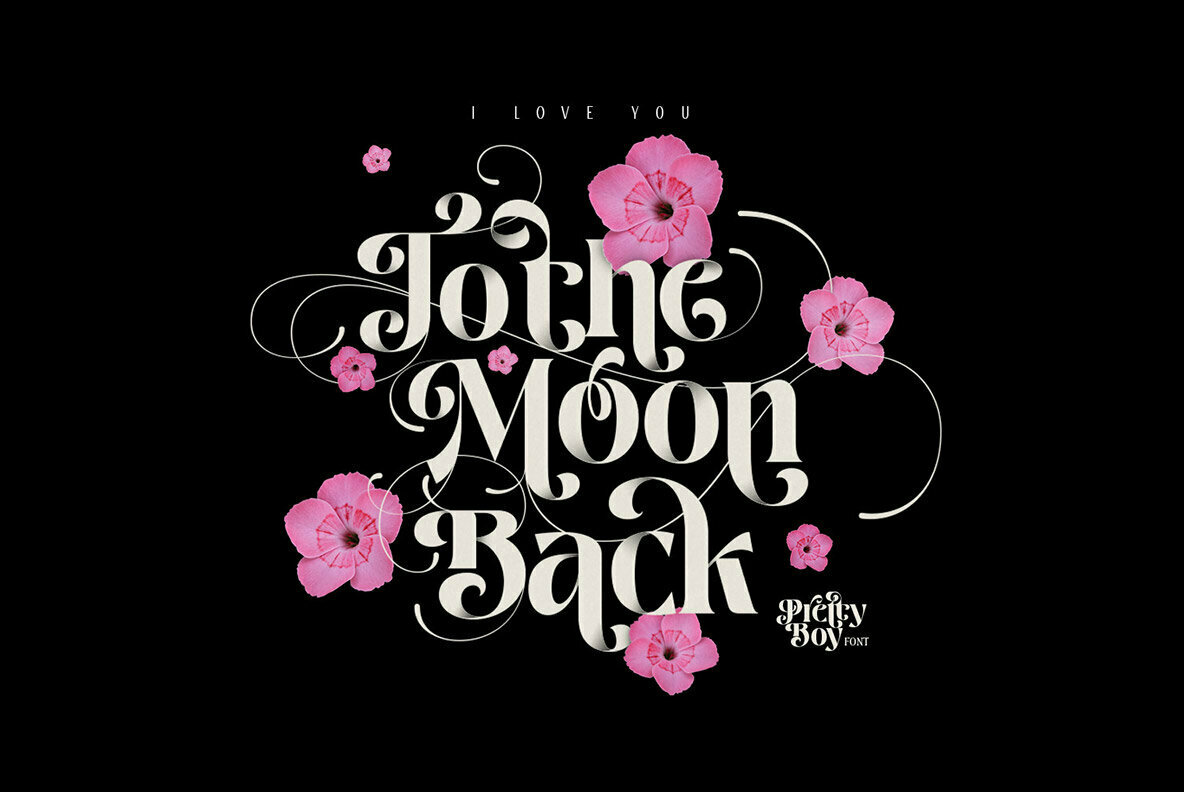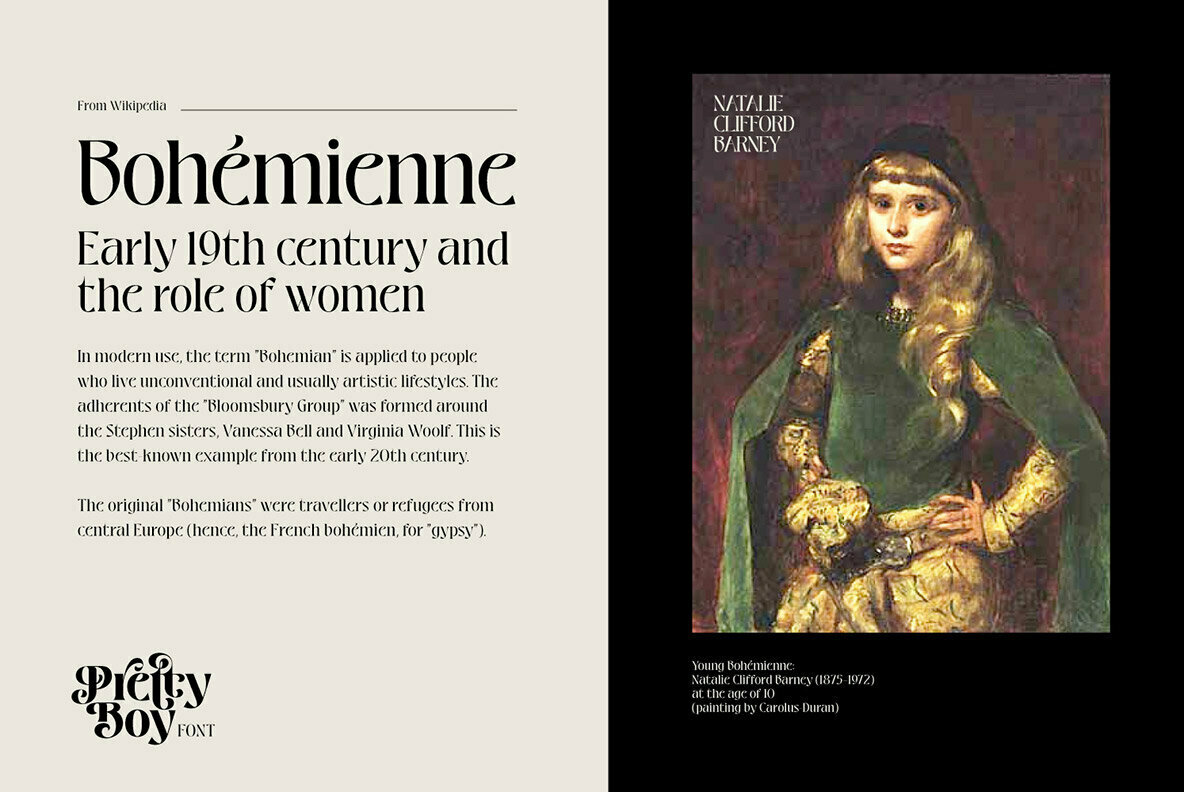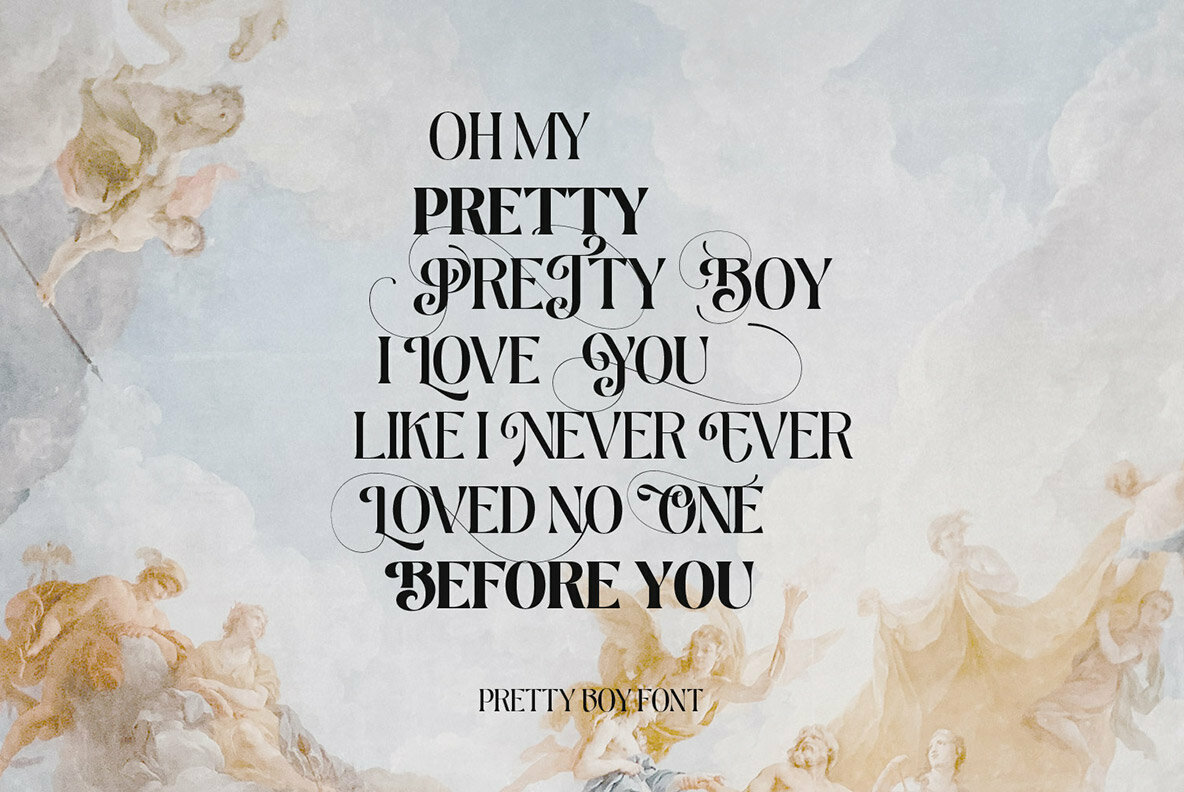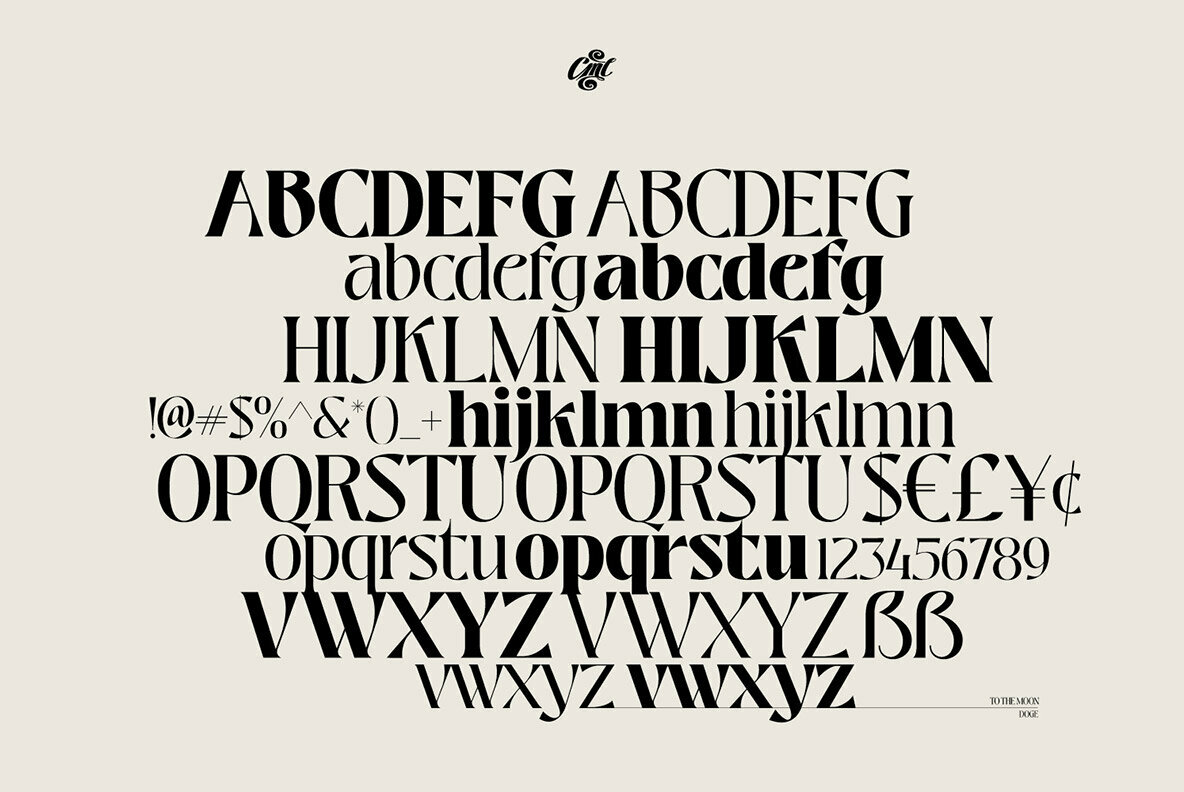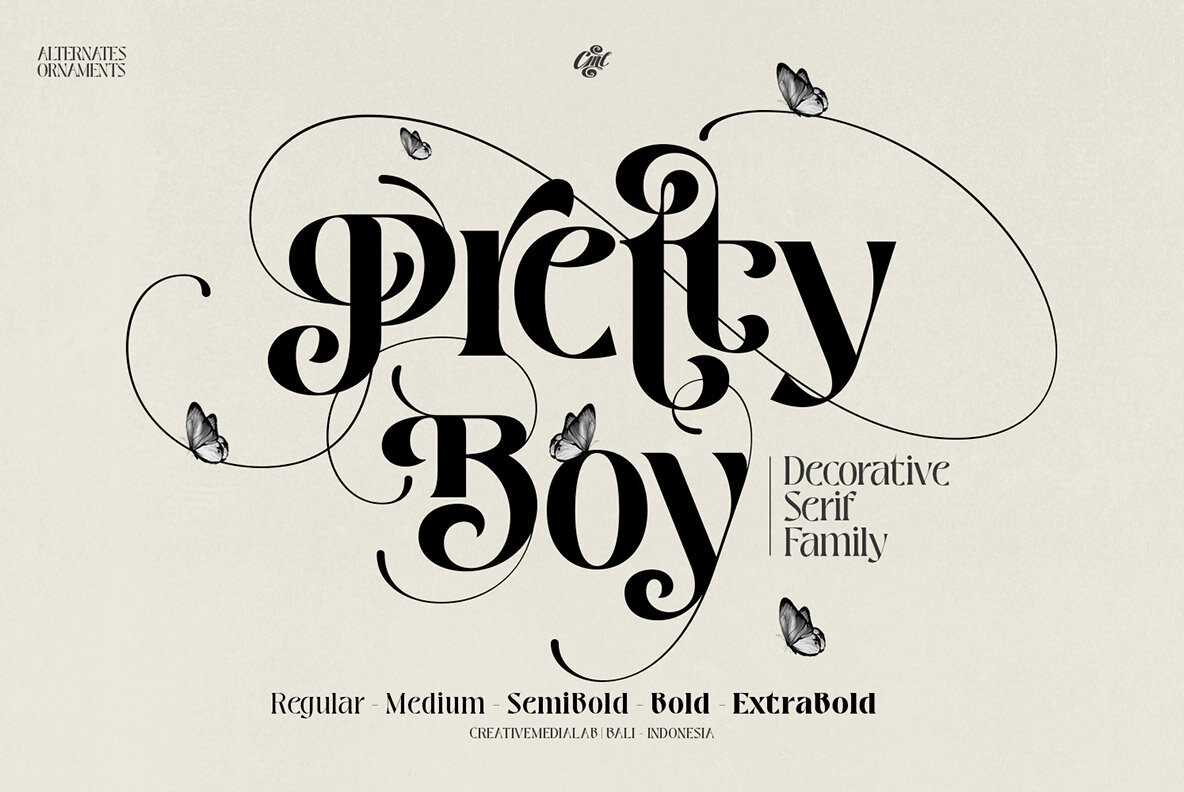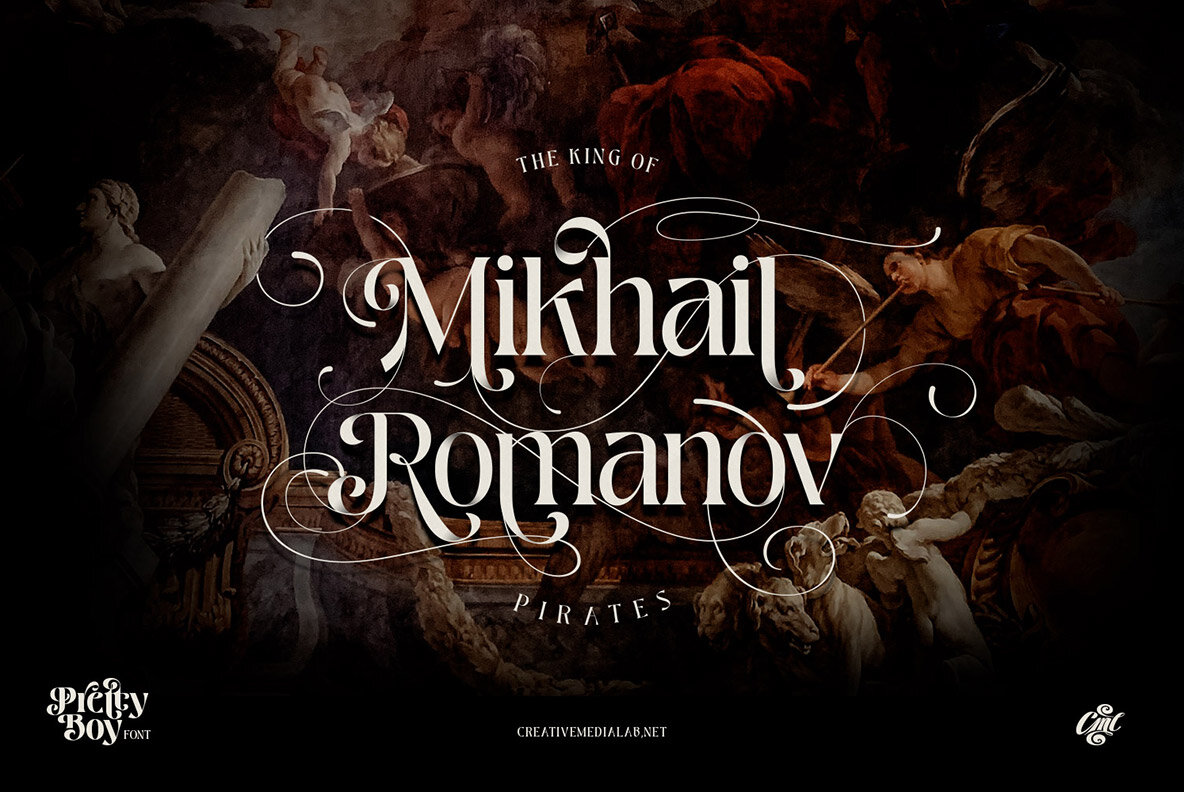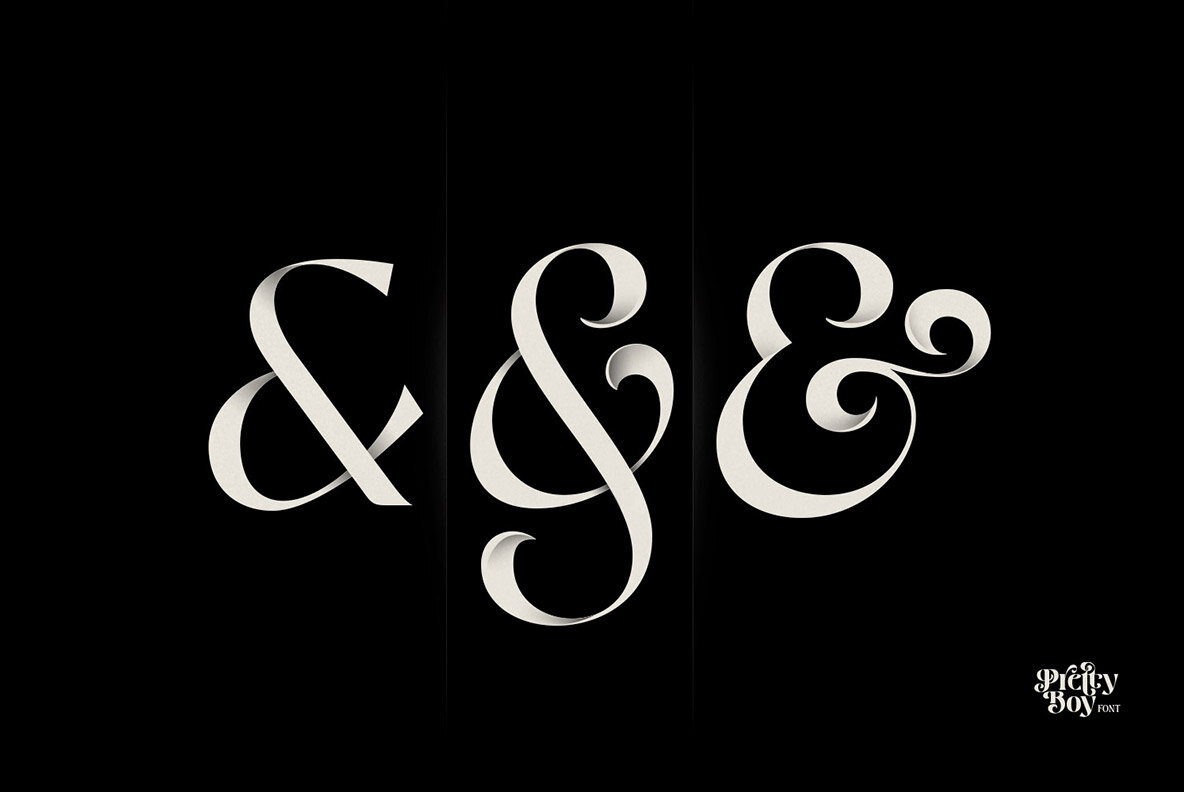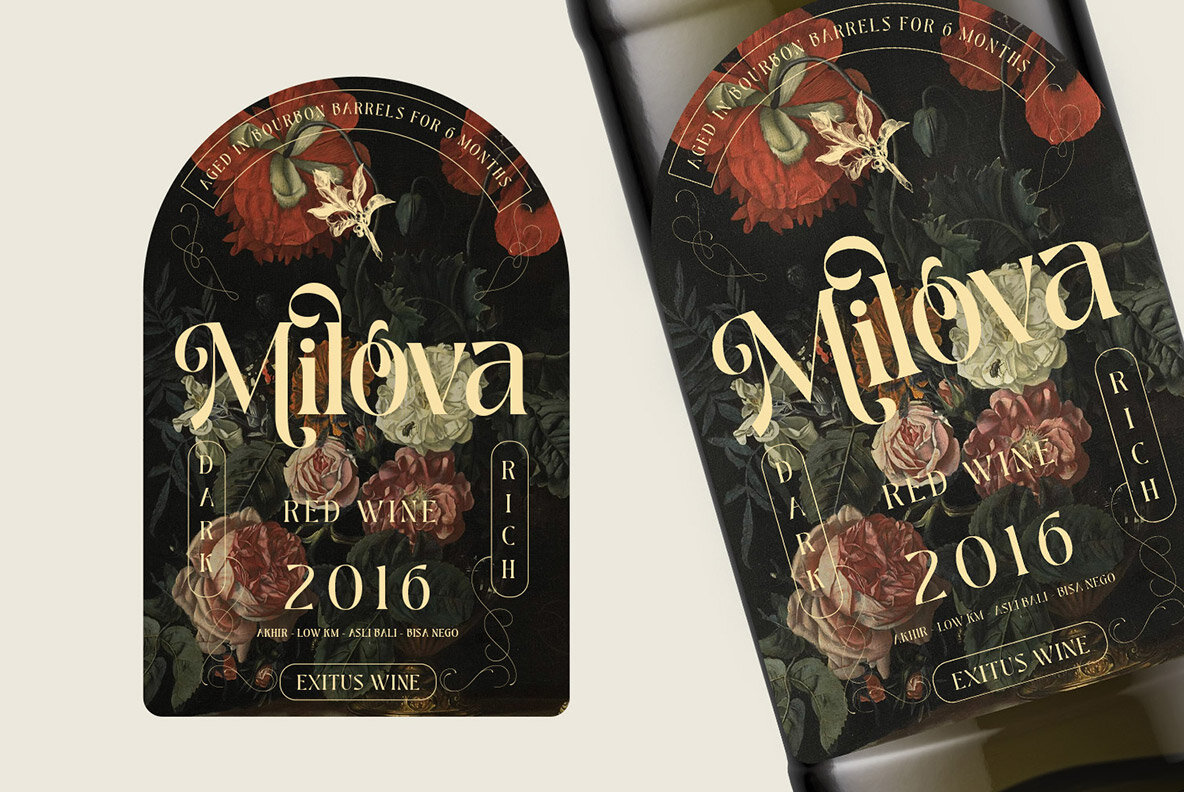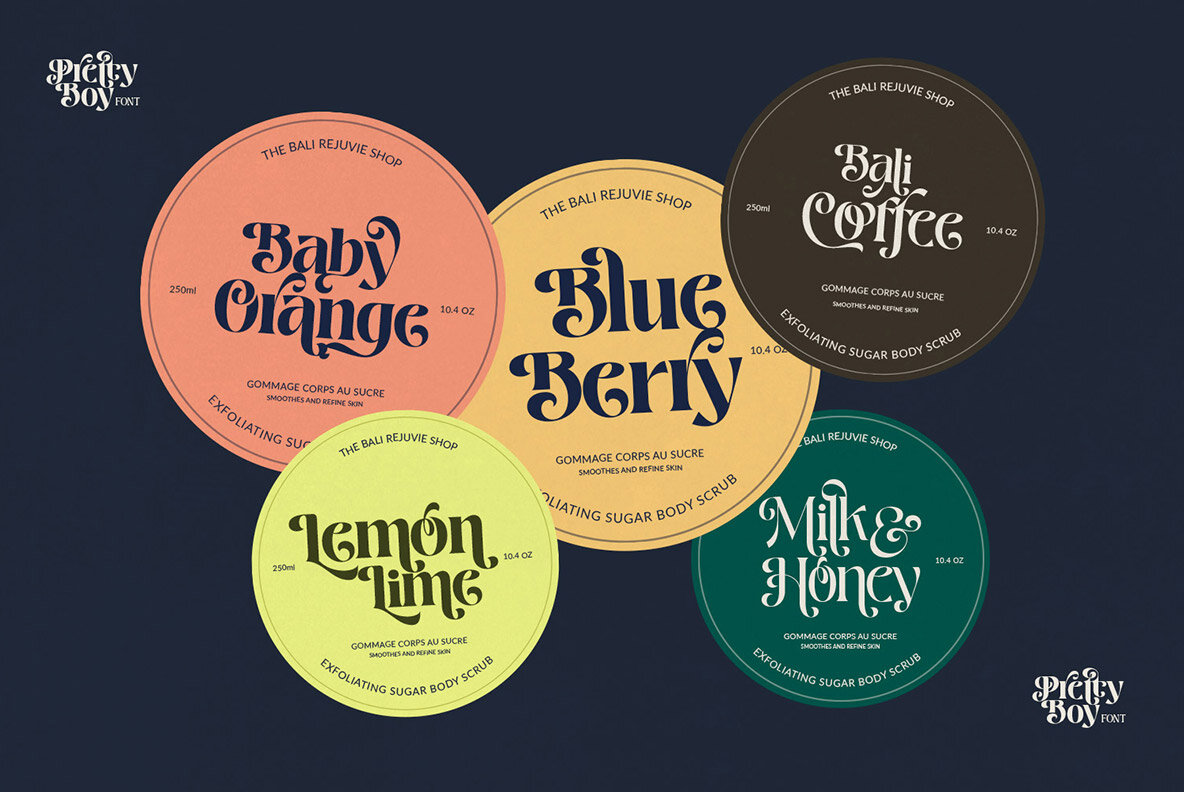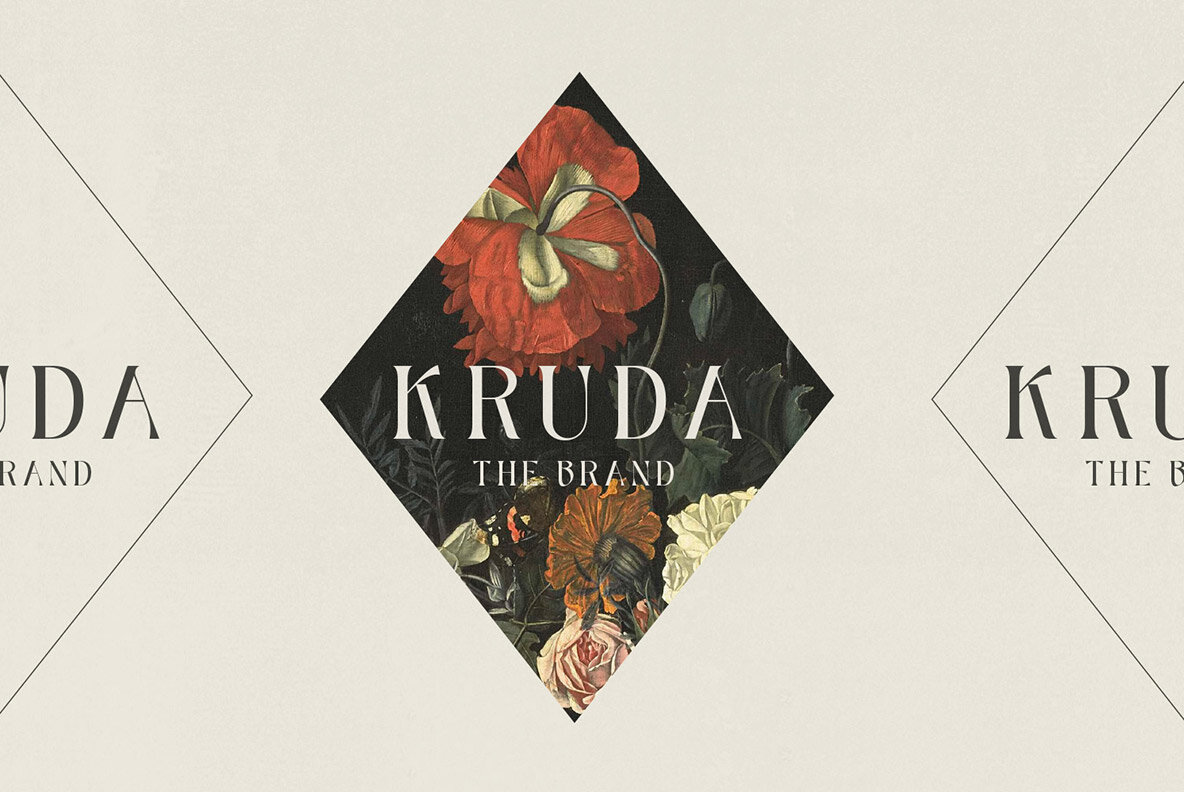
Pretty Boy Font
Pretty Boy Regular
Pretty Boy Medium
Pretty Boy SemiBold
Pretty Boy Bold
Pretty Boy ExtraBold
Pretty Boy Ornaments
Crafting beautiful and eye-catching titles can be a daunting task, often requiring significant time and effort. The Pretty Boy font offers a solution, simplifying the process by providing a versatile and aesthetically pleasing typeface that enhances your design work effortlessly. Featuring a broad array of alternates and adorned with additional swirls from the Pretty Boy ornaments, this font family presents a range of captivating results. Furthermore, the Pretty Boy Ornament pairs seamlessly with any font, adding a decorative flair to your creations.Pretty Boy: Decorative Serif for Elegant Designs